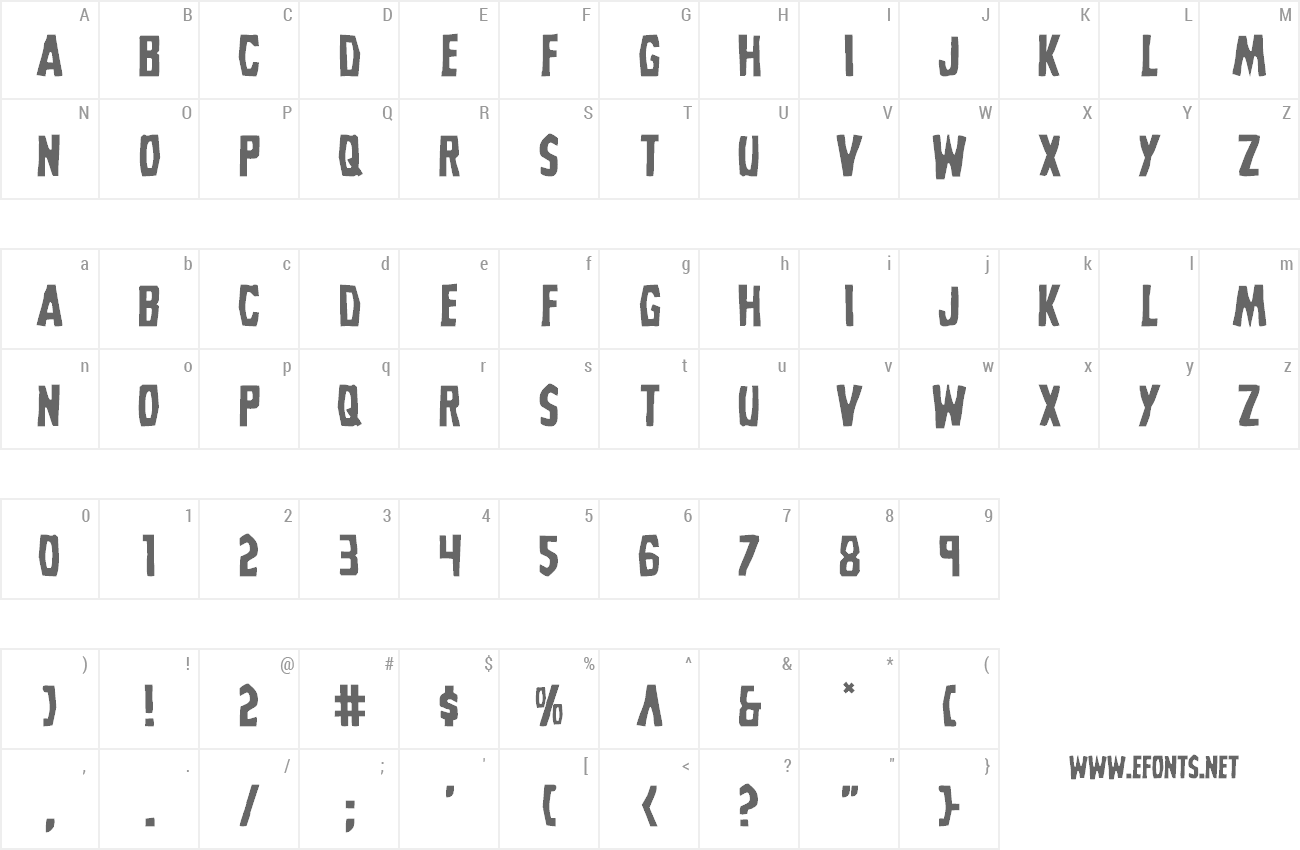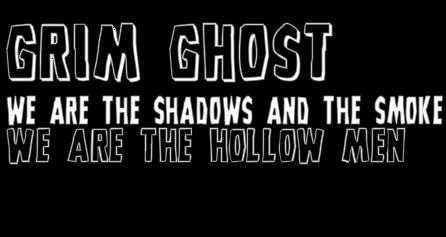
Preview and download Grim Ghost Font. Created by Iconian Fonts in Fancy Horror styles with Donationware license.
Grim Ghost is an old-school, pulp horror font. Comes with a full character set and the Euro. For information on commercial usage, please visit www.iconian.com/commercial.html |